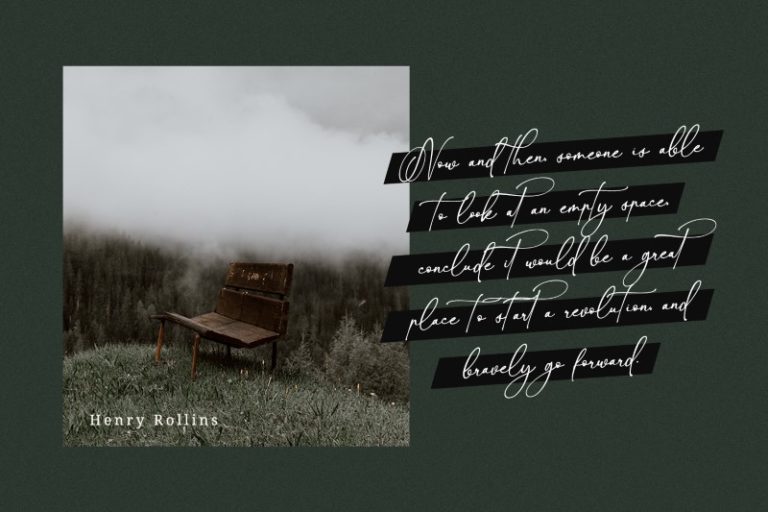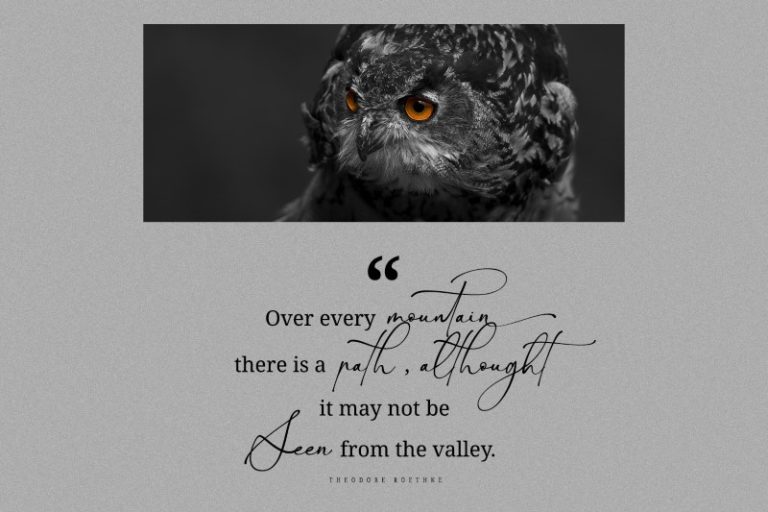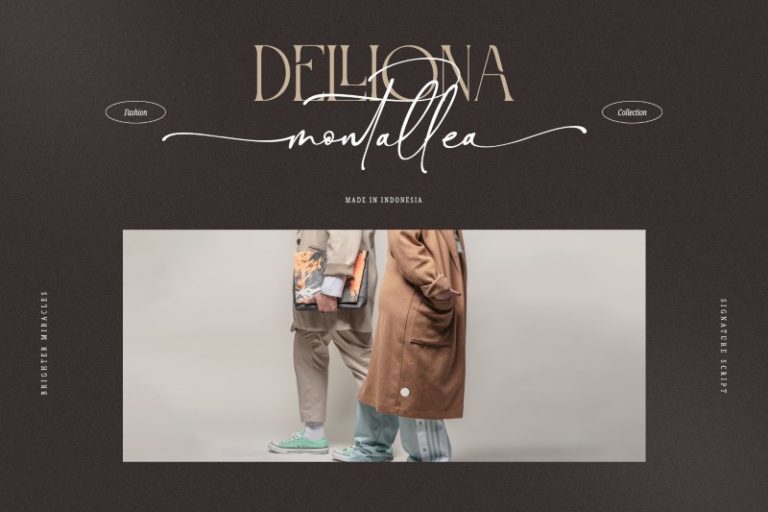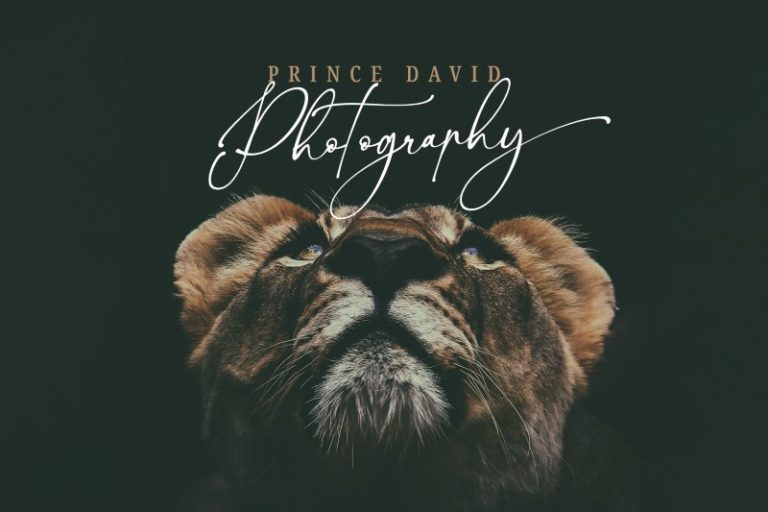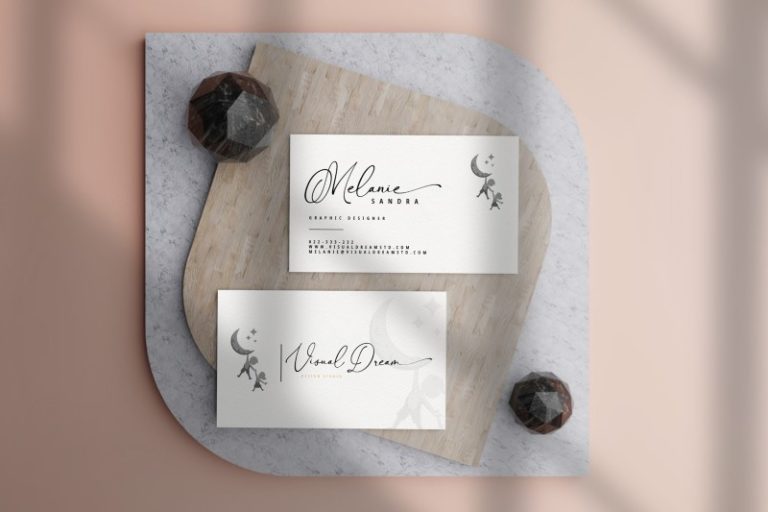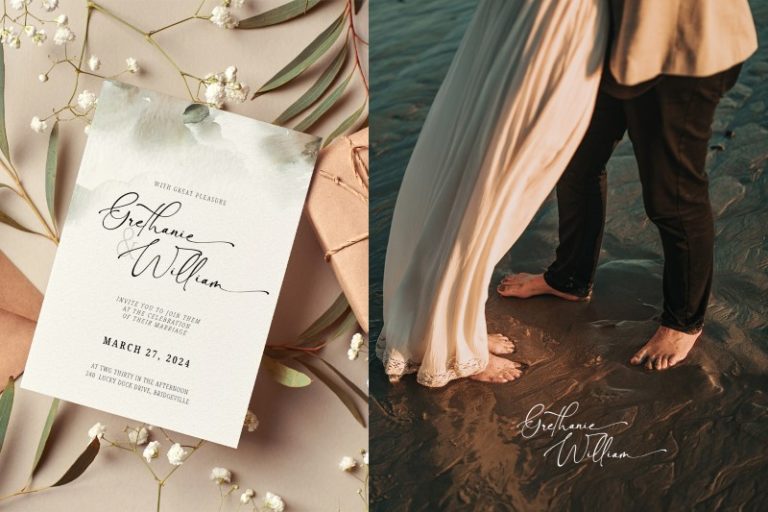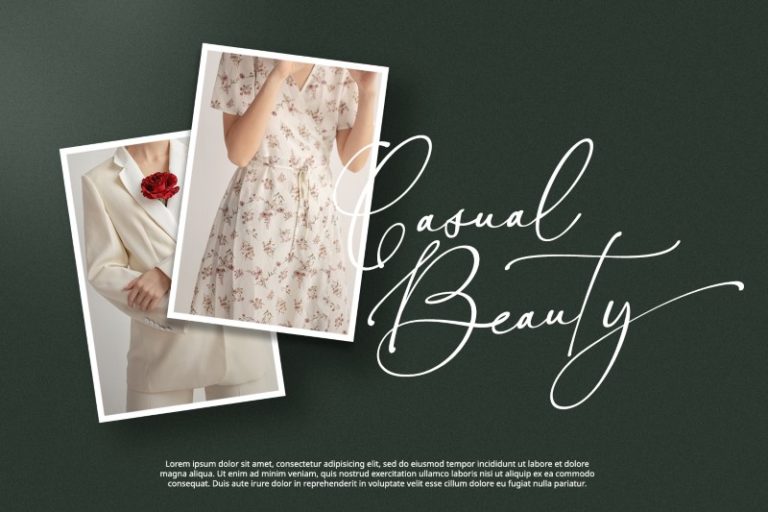
Brighter Miracles – Handwritten Script Font
Brighter Miracles
Looking for an elegant, stylish, modern, and adventurous font? Ready to make your branding shine? If you need to create a big, bold logo for your business, work on a poster for an event, or whatever your projects are, this is the perfect font for you – Brighter Miracles Font.
Brighter Miracles is a handcrafted font designed to bring your branding to life and add a touch of elegance, modernity and style. It is perfect for social media branding projects, fashion designs, printed quotes, packaging, and a stylish text overlaying any background images.
Features include:
- Ligatures
- Stylish Sets